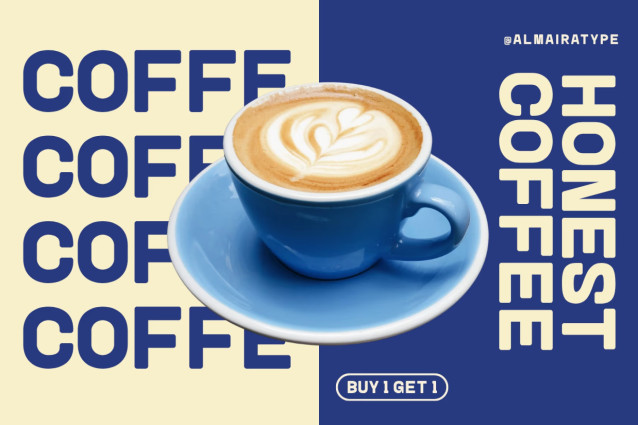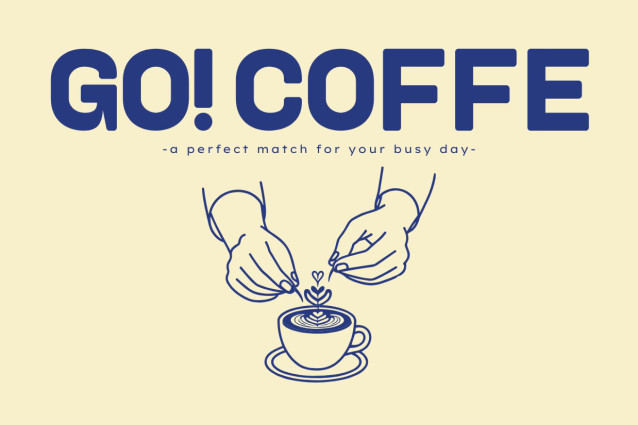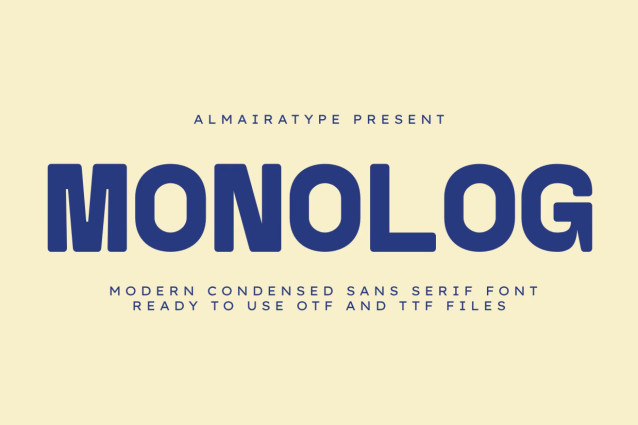
Monolog – Modern Condensed Bold Sans Serif Font
Make a bold, commanding, and sleek modern statement with Monolog, an ultra-bold modern condensed sans serif font engineered for creators who want their headlines to pop with a clean, confident charm. Meticulously structured with a heavy display weight, balanced tall compressed baselines, and softly rounded corners, this versatile font brings an instant blend of contemporary sports-lifestyle aesthetics and clean modern urban professionalism to any creative canvas.
Whether you are an apparel designer launching a fresh streetwear collection, a graphic artist establishing a bold corporate or lifestyle brand, or a high-volume print-on-demand seller optimizing listings for search engine conversions, Monolog delivers unmatched readability and outstanding shelf appeal. For the crafting community and DIY enthusiasts, every single glyph has been technically polished and vector-optimized to ensure a smooth, effortless cutting and weeding experience on digital cutting machines like Cricut and Silhouette. Bring the powerful, playful, and timeless aesthetic of Monolog into your commercial design toolkit today!